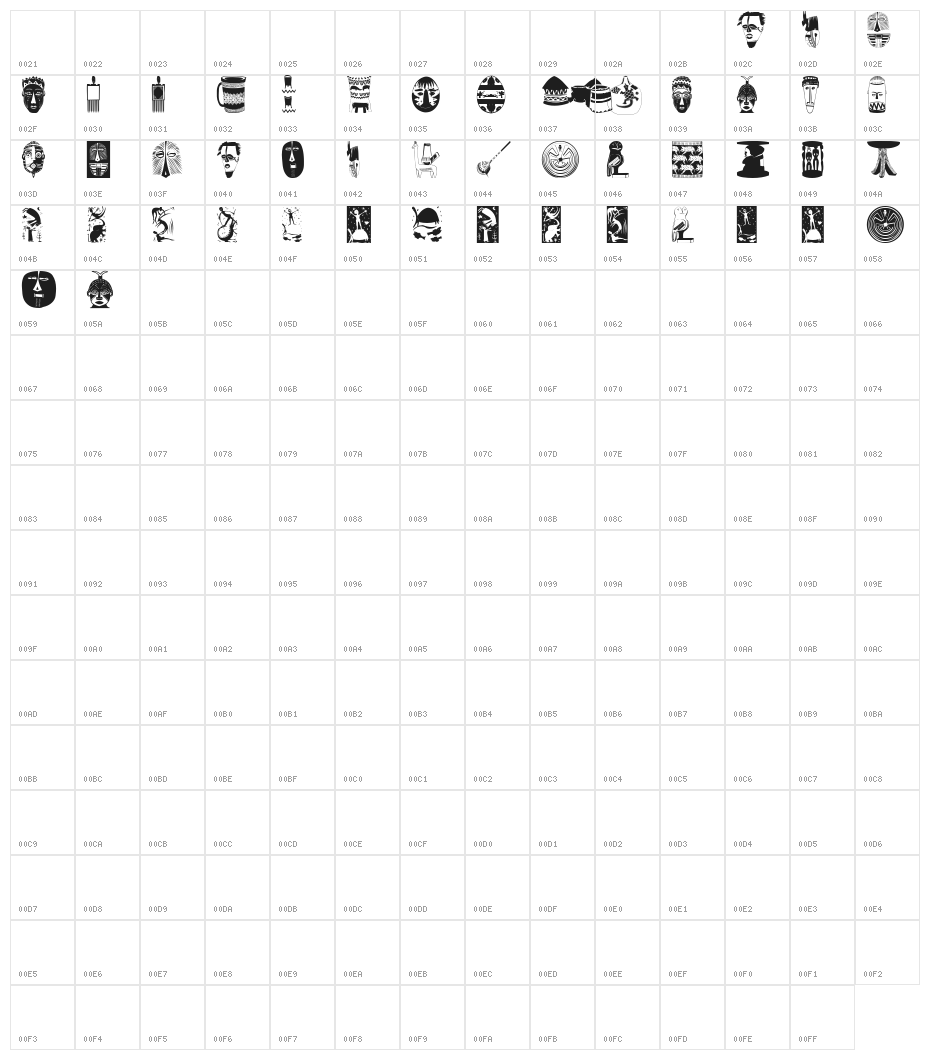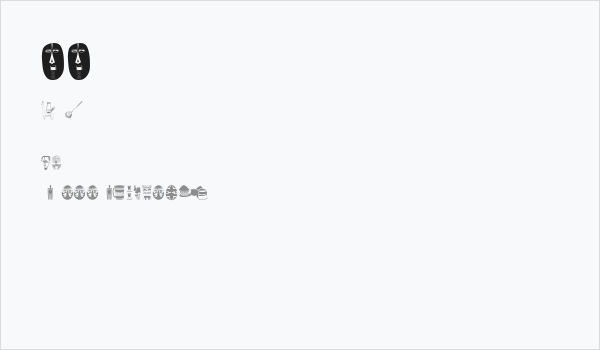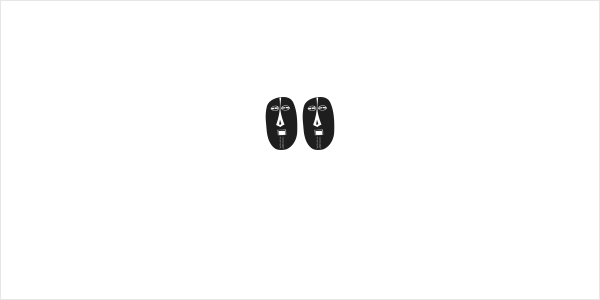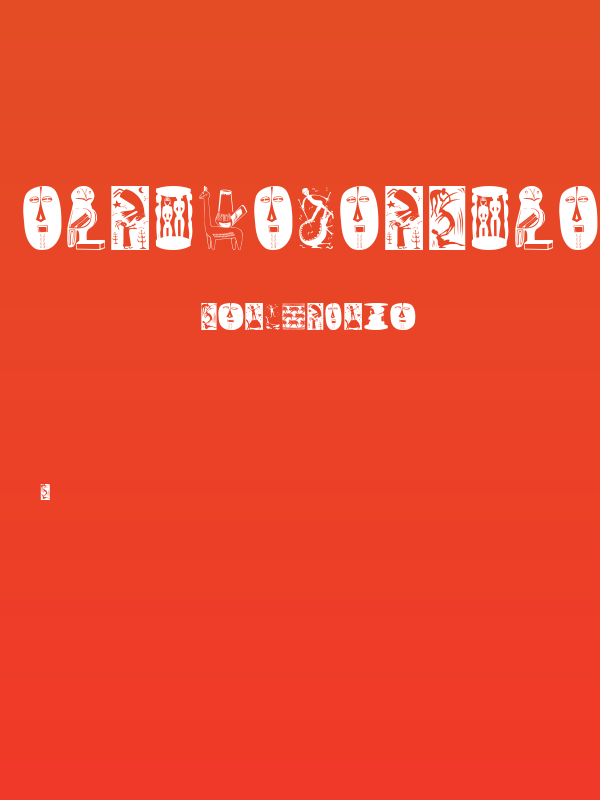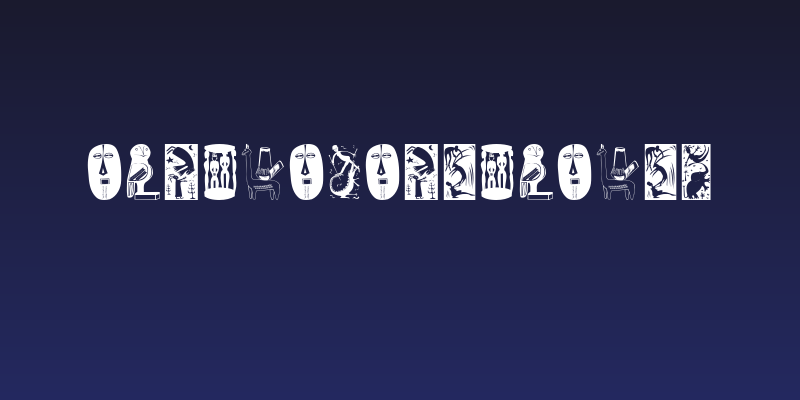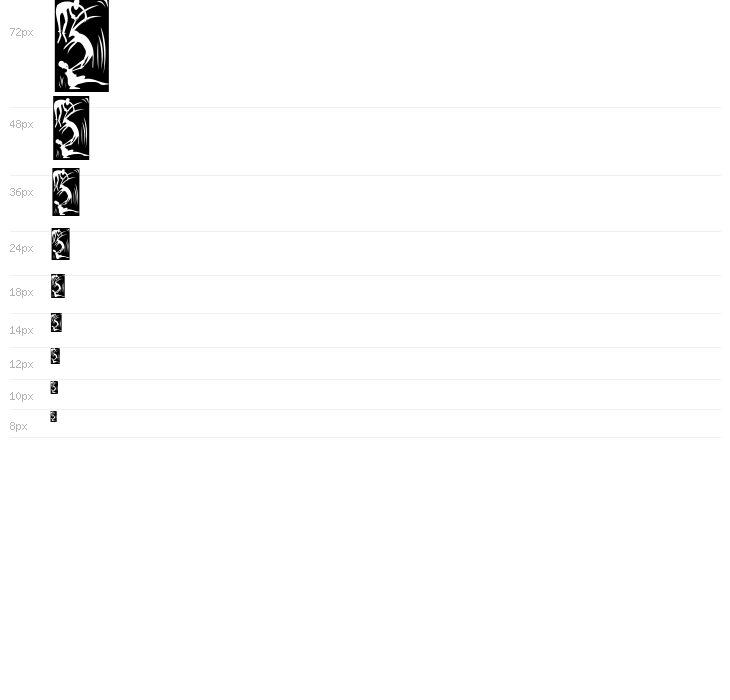
AfricanArtifacts Font
AfricanArtifacts Description
This collection of symbols and images is inspired by traditional African artifacts, featuring a variety of intricate designs that reflect cultural motifs. Each character is a unique representation of masks, sculptures, and other traditional art forms, showcasing detailed patterns and bold shapes. The designs are highly decorative, with a strong emphasis on cultural heritage and artistic expression. The use of black and white contrast highlights the intricate details and adds a striking visual impact. This set is not a traditional font but rather a series of pictorial representations that capture the essence of African art.
| Use Case | Artistic projects, cultural displays, educational materials. |
| Proposed Projects | Ideal for cultural exhibitions, educational materials on African art, themed event decorations, or artistic projects that require a touch of traditional African aesthetics. |